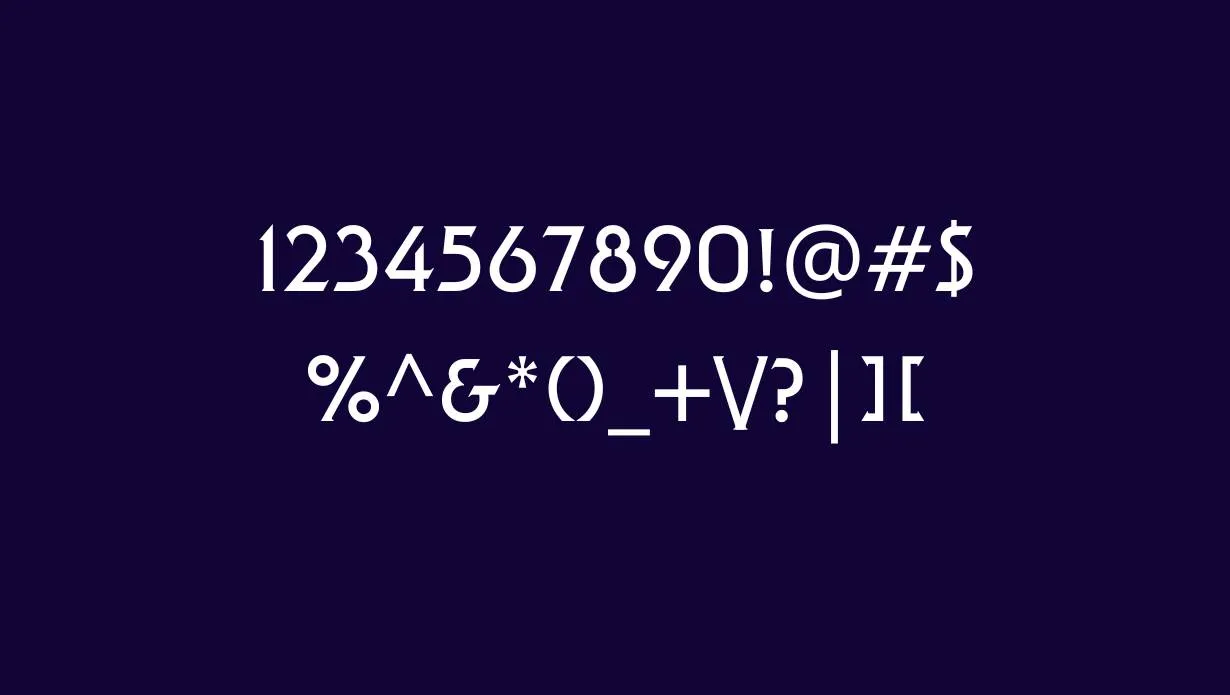
Final Frontier Font is designed for projects that aim to capture the spirit of space exploration and the unknown.
Its futuristic and bold letterforms add an element of adventure and curiosity to your designs, making it a suitable choice for sci-fi and space-themed projects.
| Name | Final Frontier Font |
| Designer | Allen R. Walden |